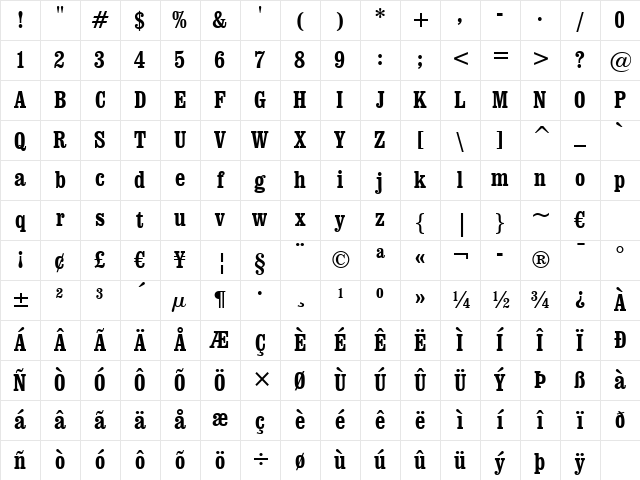
Clarendon Cn BT features prominent, blocky serifs that give it a confident, grounded presence - equally at home in editorial settings and bold branding work. Its bold stroke weight gives it real presence on the page.
Pro Tip: Use Clarendon Cn BT for headlines and subheadings where its slab serifs can make an impression. It also holds up well in mid-size body copy thanks to its sturdy construction.